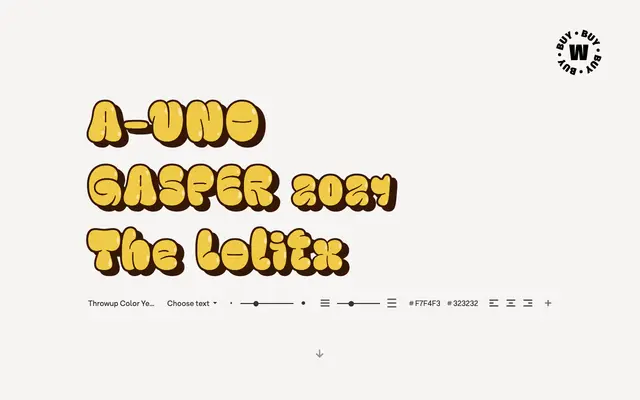
Throwup
A layered, colour-font display typeface drawn from graffiti 'flop' lettering, replicating the thick-to-thin strokes of spray paint caps.
Designed by Gaspar Muñoz from his own graffiti background, Throwup translates the rapid, simple forms of spray-painted 'bombs' into a digital layered type system. The family splits into two subfamilies across eight styles: a base set with Stroke, Shadow and Highlight layers, and a Colour variant in Yellow, Pink, Light Blue and Grey. The layering system allows for flexible combinations that reproduce the look of oversprayed graffiti lettering.
Throwup is explicitly a display typeface drawn from graffiti 'flop' or 'bomb' lettering, characterised by thick-to-thin spray-paint transitions and simple, rapid forms — placing it firmly in the display category with a graffiti subcategory.